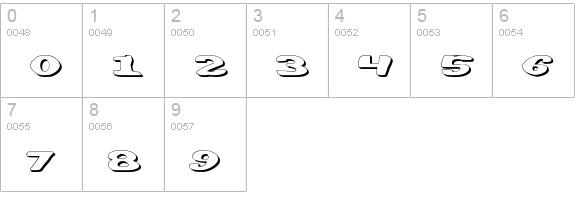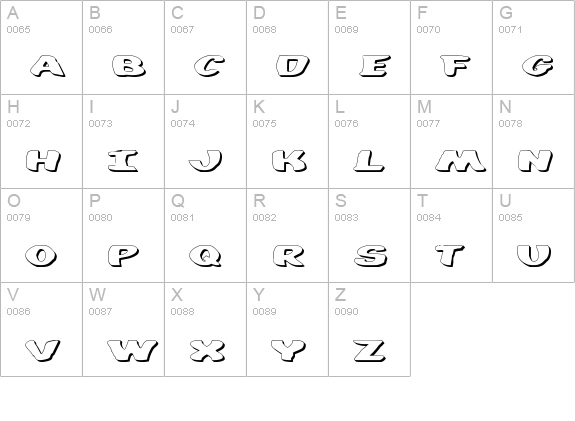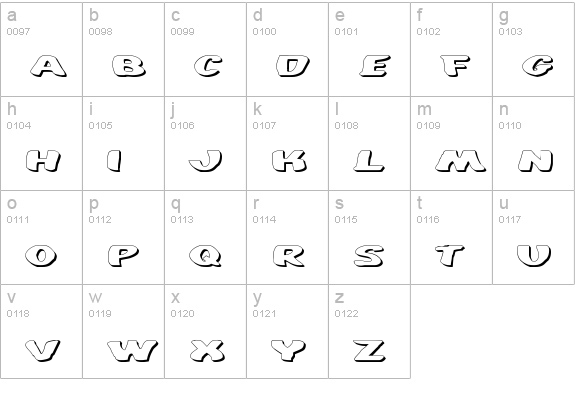
DiegoCon 3D Font Details
DiegoCon 3D font is a striking and innovative typeface that brings a new dimension to your design projects. With its bold and three-dimensional appearance, this font is sure to make a statement and capture the attention of your audience. Whether you're working on a logo, poster, or website, DiegoCon 3D font will add a dynamic and modern touch to your work. The best part? DiegoCon 3D font is available for free download at FontsMarket.com. That's right, you can get your hands on this eye-catching font without spending a dime. Don't miss out on the opportunity to enhance your designs with the unique style of DiegoCon 3D font. Download it today and take your projects to the next level!